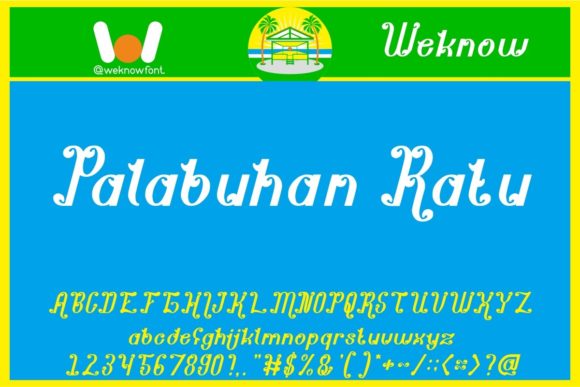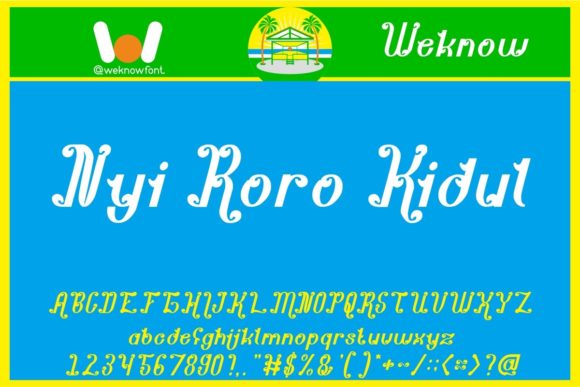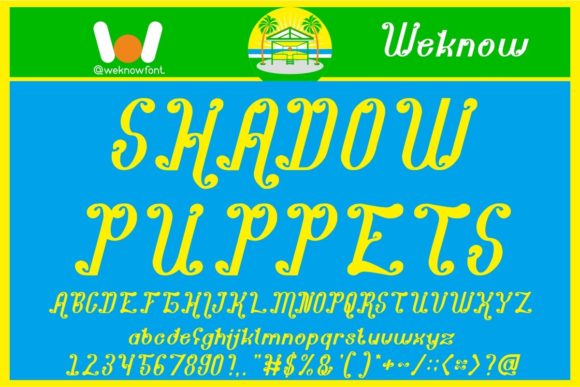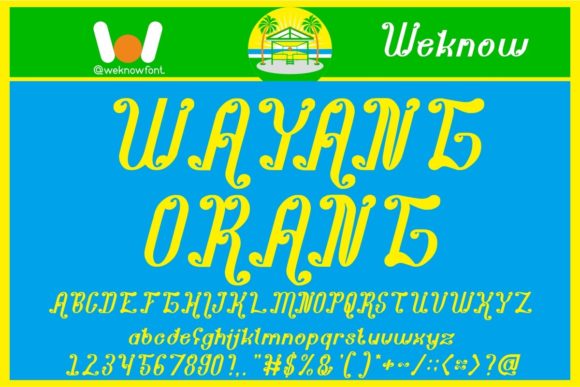
Introduction to Pondok Ratu Intan Font Font
Fonts play a crucial role in design, and the Pondok Ratu Intan Font font is a typeface that brings both character and versatility to any project. Whether you’re working on a branding project, a website, or a print design, the Pondok Ratu Intan Font font offers a unique style that can elevate your work.
| 📌 Font Name | Pondok Ratu Intan Font |
| 👤 Author | weknow |
Pondok Ratu intan is a Foreign look, various themes font, suit for logo, logotype, headline font, in corporate identity, brand identity, apparel industry, poster, music, movie, game, magazine, book, comic, cartoon, YouTube, Instagram, website, or any of your creative design project.
Pondok Ratu intan is a Foreign look, various themes font, suit for logo, logotype, headline font, in corporate identity, brand identity, apparel industry, poster, music, movie, game, magazine, book, c
Key Features of Pondok Ratu Intan Font Font
Why Choose Pondok Ratu Intan Font Font?
The Pondok Ratu Intan Font font is more than just a typeface – it’s a design tool that helps you communicate your message with style and clarity. Its unique character set and versatile design make it suitable for a wide range of applications, from elegant invitations to bold headlines.
With its carefully crafted letterforms and balanced proportions, the Pondok Ratu Intan Font font ensures readability and visual appeal across all mediums.
What makes Pondok Ratu Intan Font font special?
The Pondok Ratu Intan Font font stands out with its unique design, exceptional readability, and versatility across various design applications.